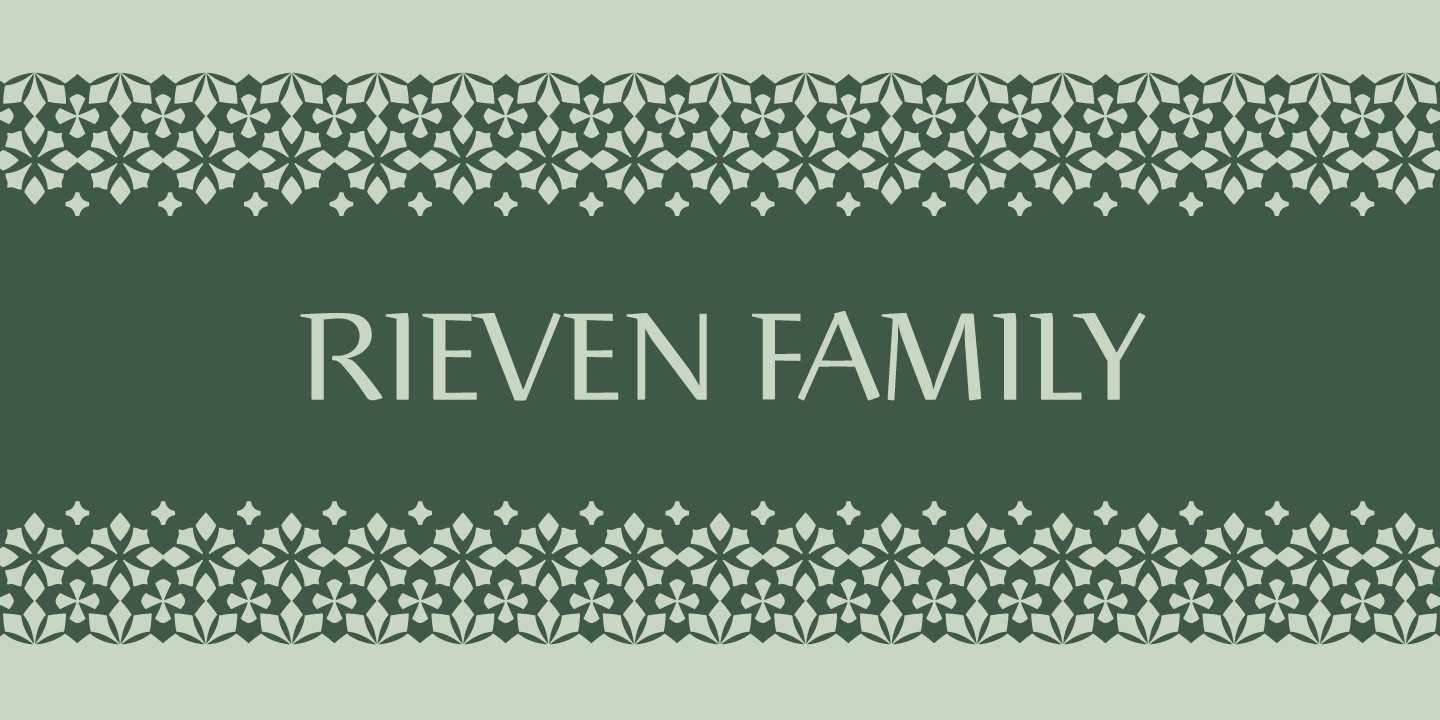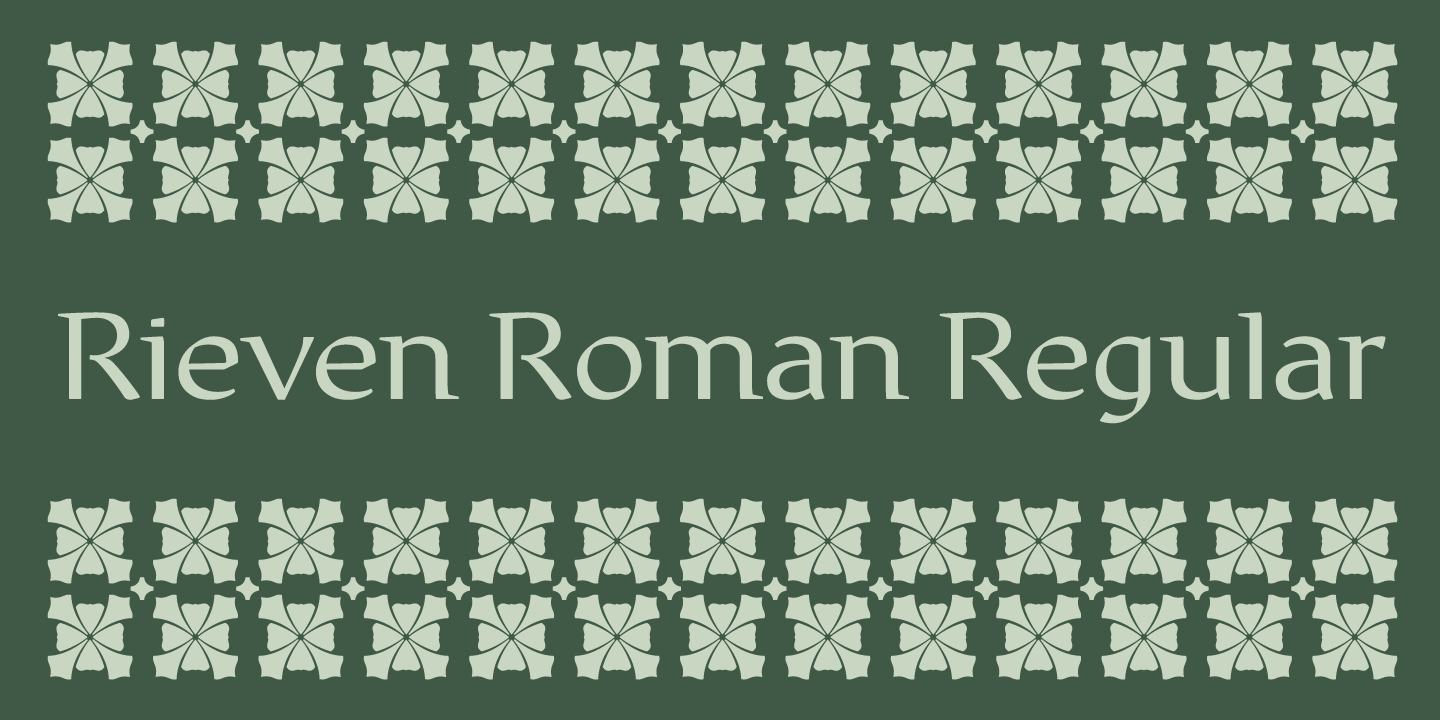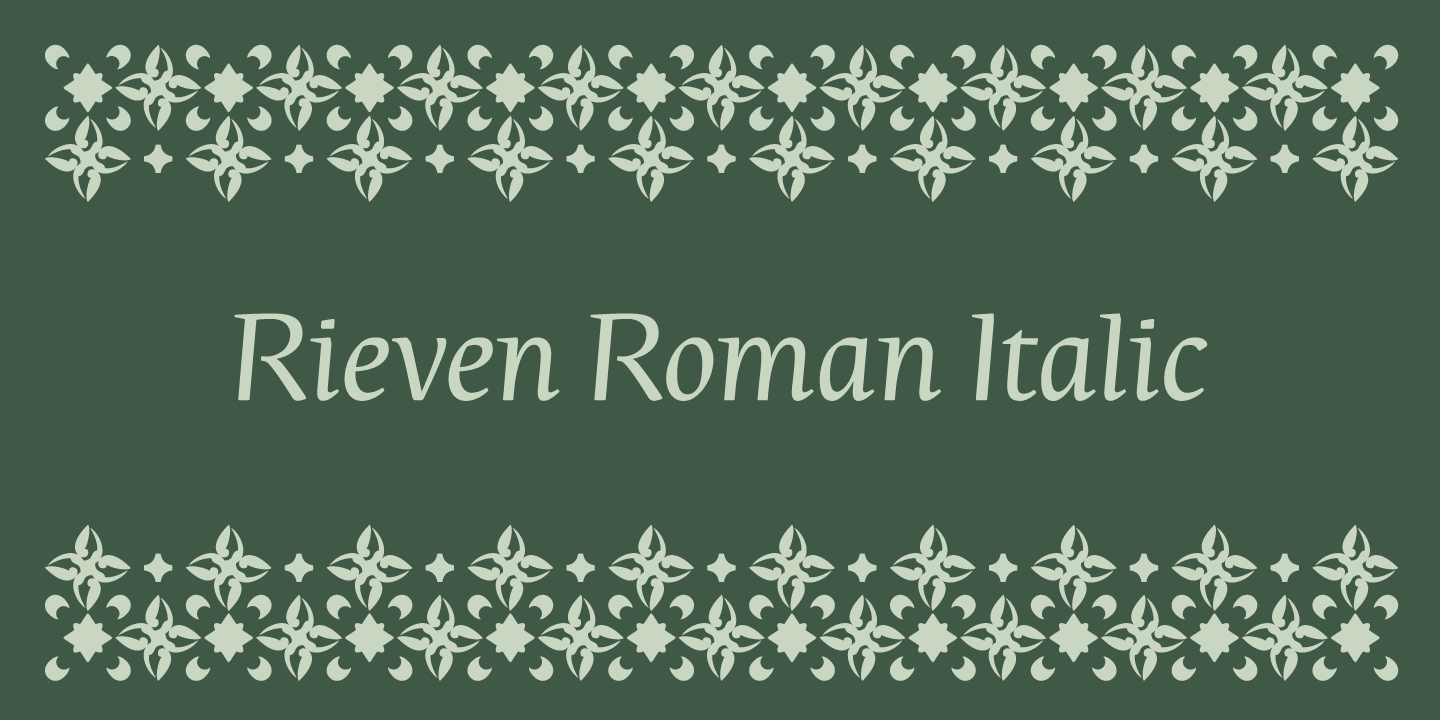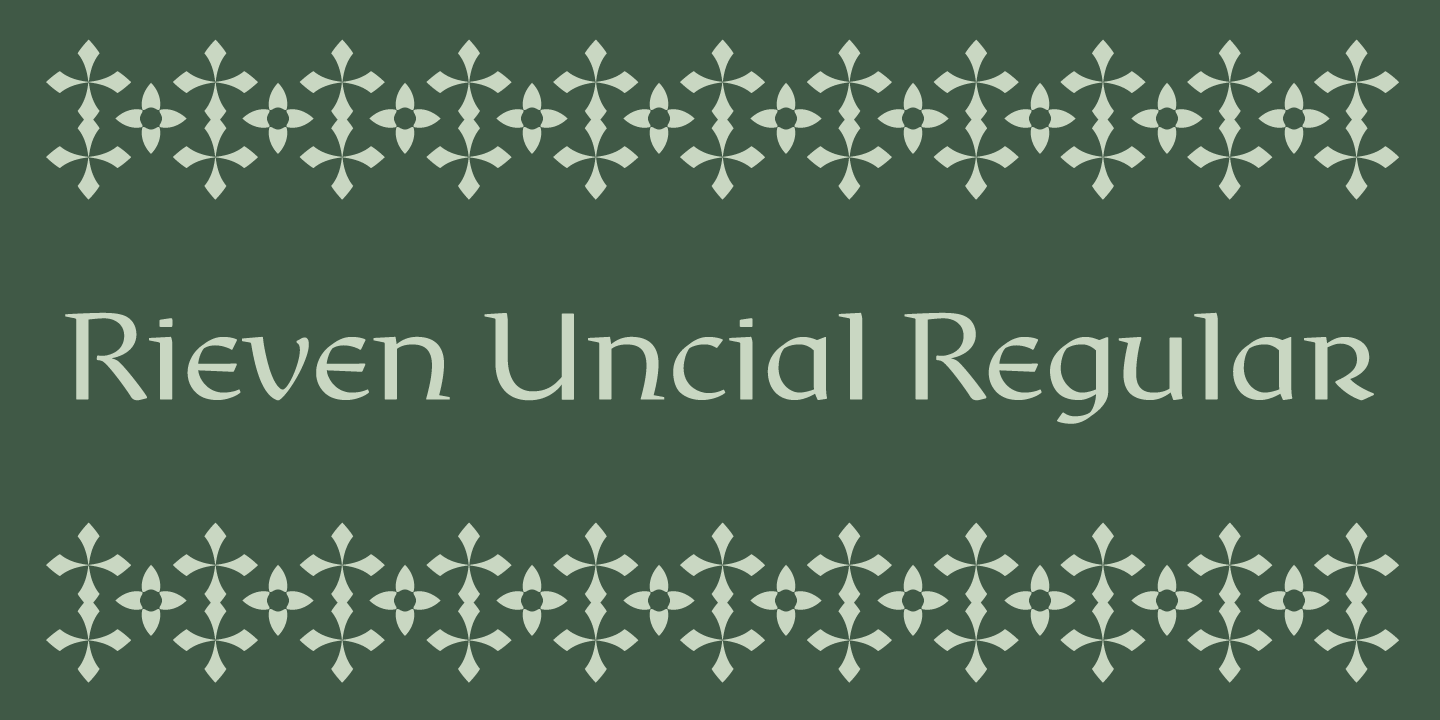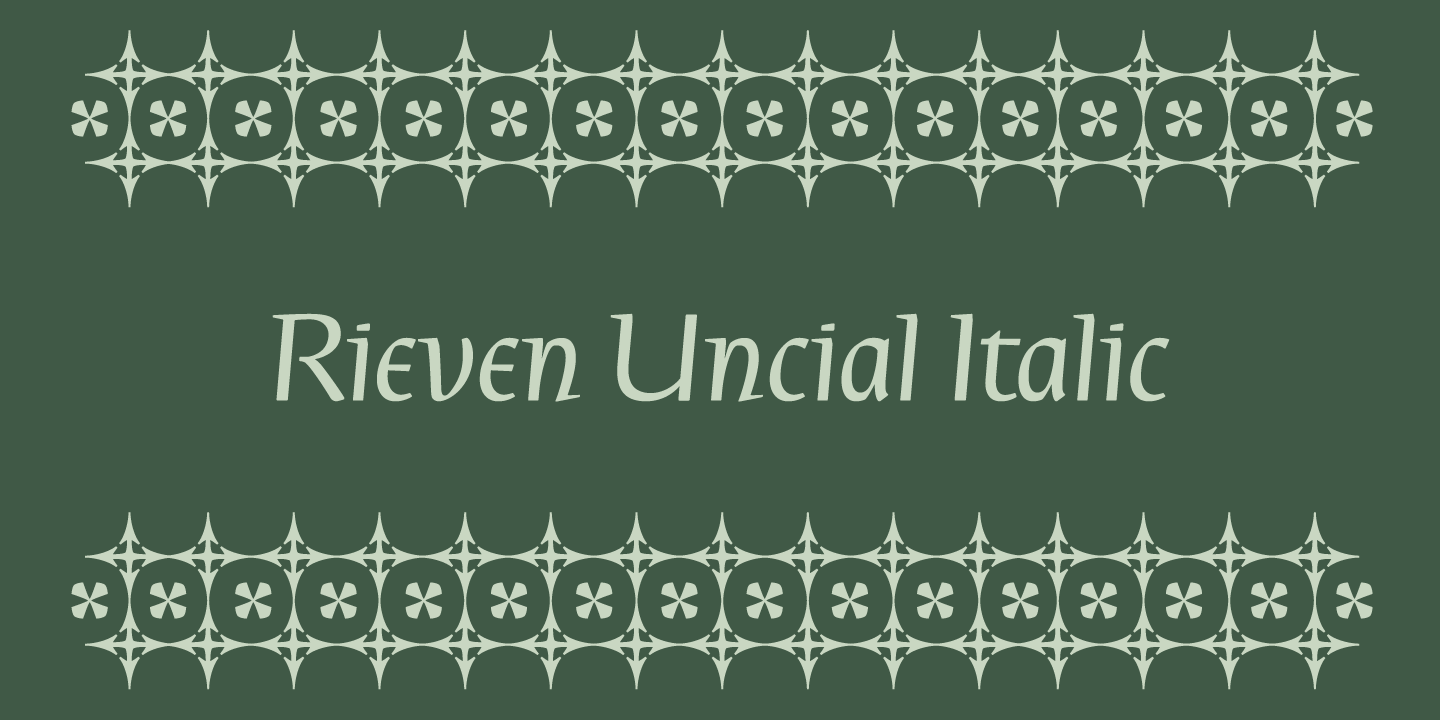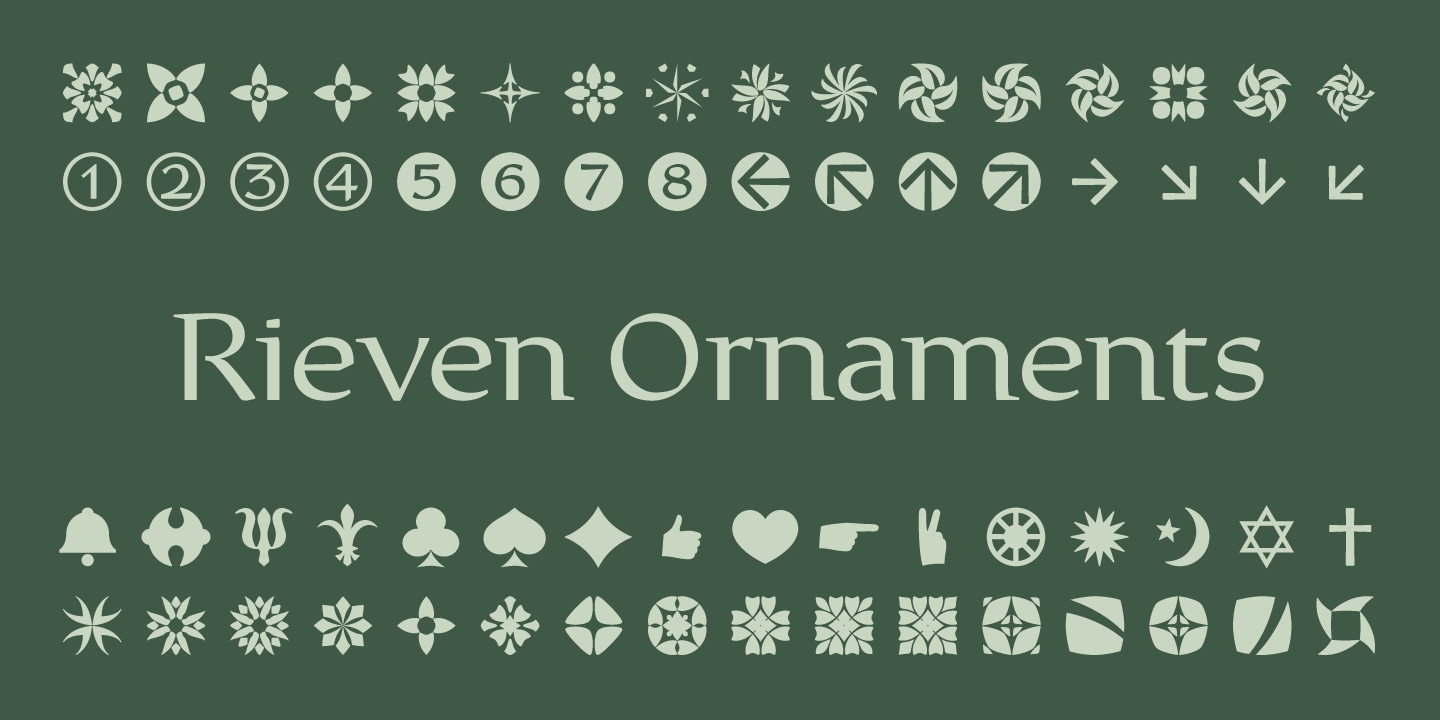
Rieven
Font Family by Delve Fonts
Also a part of the Rieven Family package is Rieven Ornaments, a font comprised of over 180 glyphs including useful symbols, circled numbers, arrows, and a set of magnificent decorative ornaments.
Rieven Uncial received a ?Certificate of Excellence in Type Design? in the 2010 TDC